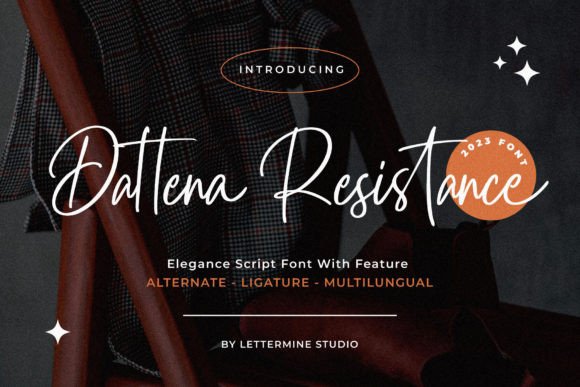
Dattena Resistance Font: Elevate Your Designs with Elegance and Modernity
In the world of typography, fonts play a crucial role in conveying the tone and personality of a brand or design. With numerous font options available, finding the perfect one that combines elegance, modernity, and versatility can be a daunting task. However, if you’re looking for a font that can effortlessly elevate your designs to new heights, look no further than the Dattena Resistance Font. In this article, we’ll explore the features, benefits, and uses of the Dattena Resistance Font, and why it’s an excellent choice for various industries and design projects.
Introducing Dattena Resistance-Script Font
The Dattena Resistance-Script Font is a captivating and versatile script font designed to add a touch of elegance and modernity to any project. Whether you’re designing for the fashion industry, food industry, or various celebratory occasions like weddings, birthdays, or engagements, this font is your perfect companion. With its stylish and contemporary script style, Dattena Resistance-Script Font effortlessly captures attention and elevates your designs to new heights.
Key Features of Dattena Resistance Font
- Unique and Stylish Design: The Dattena Resistance Font boasts a distinctive and stylish design that sets it apart from other fonts. Its elegant and modern script style makes it perfect for designs that require a touch of sophistication.
- Versatility: This font is incredibly versatile and can be used for various design projects, including fashion, food, weddings, birthdays, and more.
- Easy to Read: Despite its elegant and cursive style, the Dattena Resistance Font is easy to read, making it perfect for body text and headlines.
- Scalable: The font is highly scalable, ensuring that it looks great on various devices and platforms.
Benefits of Using Dattena Resistance Font
Using the Dattena Resistance Font offers numerous benefits, including:
- Enhanced Visual Appeal: The font’s elegant and modern design instantly enhances the visual appeal of your designs, making them more engaging and attention-grabbing.
- Professional Look: The Dattena Resistance Font gives your designs a professional look, making it perfect for businesses and brands that want to establish a strong visual identity.
- Time-Saving: With its versatility and ease of use, the Dattena Resistance Font saves you time and effort, allowing you to focus on other aspects of your design project.
Industries That Can Benefit from Dattena Resistance Font
The Dattena Resistance Font is an excellent choice for various industries, including:
- Fashion Industry: The font’s elegant and modern design makes it perfect for fashion brands, designers, and influencers who want to create stylish and sophisticated designs.
- Food Industry: The Dattena Resistance Font is ideal for food bloggers, restaurants, and food brands that want to add a touch of elegance and sophistication to their designs.
- Wedding and Event Planning: The font’s stylish and contemporary script style makes it perfect for wedding planners, event designers, and couples who want to create beautiful and memorable designs for their special day.
Tips for Using Dattena Resistance Font
To get the most out of the Dattena Resistance Font, follow these tips:
- Use it for Headlines and Titles: The font’s elegant and modern design makes it perfect for headlines and titles. Use it to create attention-grabbing headings that set the tone for your design.
- Pair it with Other Fonts: Experiment with pairing the Dattena Resistance Font with other fonts to create a unique and visually appealing design.
- Adjust Font Size and Color: Adjust the font size and color to suit your design needs. The Dattena Resistance Font is highly scalable, so feel free to experiment with different sizes and colors.
In conclusion, the Dattena Resistance Font is an excellent choice for designers, businesses, and brands that want to add a touch of elegance and modernity to their designs. With its unique and stylish design, versatility, and ease of use, this font is perfect for various design projects, including fashion, food, weddings, and more. Whether you’re a seasoned designer or a beginner, the Dattena Resistance Font is an excellent addition to your font collection.
- What is the Dattena Resistance Font?: The Dattena Resistance Font is a captivating and versatile script font designed to add a touch of elegance and modernity to any project.